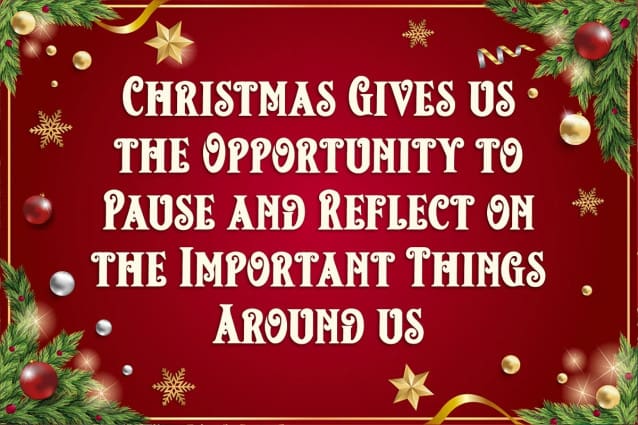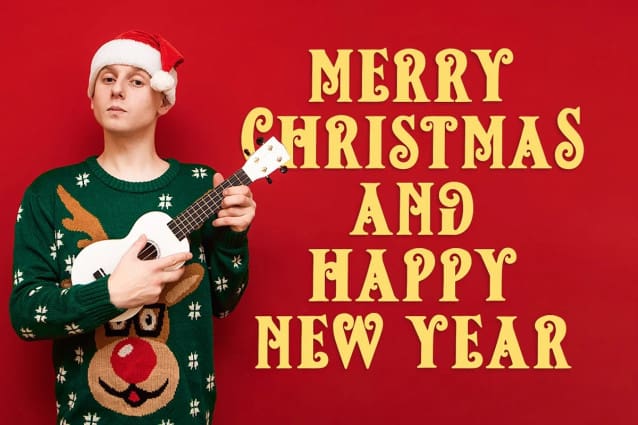
Christmas Mozart Font
Christmas Mozart Font a Christmas Serif, Inspiring from bouncy caligraphy style. This font is perfect for a design that makes it more attractive and playful. made with a very good level of aesthetics making this font suitable for book cover, poster, packging, merchandise, logotype and much more.